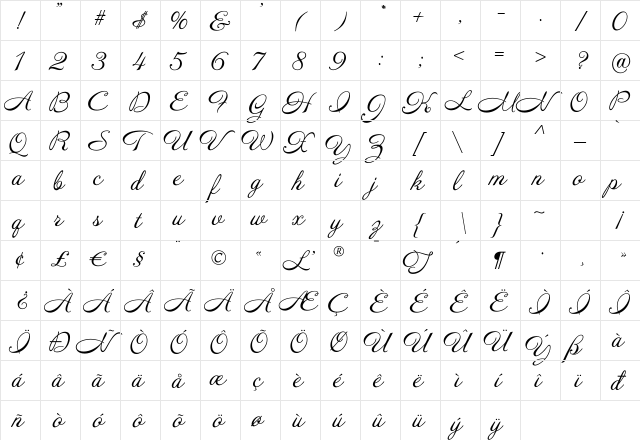
AnnabelleJF 'LessItalic' Regular
Design Context for AnnabelleJF 'LessItalic' Typeface
AnnabelleJF 'LessItalic' is a composed and adaptable typeface that performs quietly and consistently across a wide range of design contexts. The slanted form adds forward momentum and visual energy.